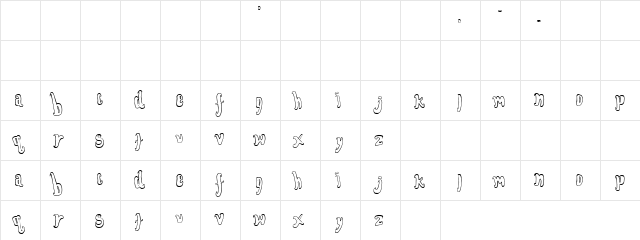
FontForTheDumped Outline
FontForTheDumped brings ornamental detail and strong personality to headlines and identities, where visual impact matters more than quiet functionality.
Font Pairing: Pair with a clean neutral sans-serif for body copy to let FontForTheDumped's character lead without overwhelming the composition.
Pro Tip: Treat FontForTheDumped as the centrepiece of your typographic hierarchy. One strong heading set in a decorative face can carry an entire layout.